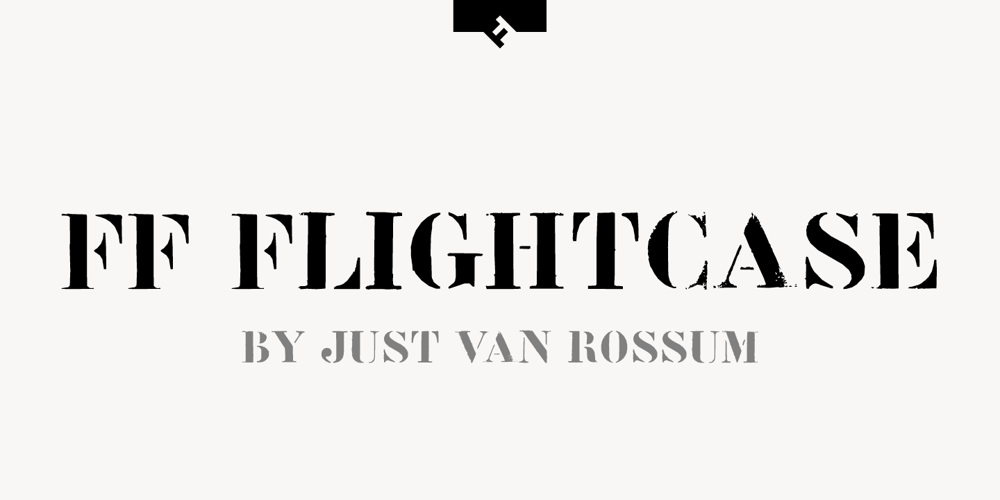
FF Flightcase
FF Flightcase font
FF Flightcase Font Family was designed by Just van Rossum and published by FontFont. FF Flightcase contains 1 styles and family package options. Dutch type designer Just van Rossum created this display FontFont in 1992. The font is ideally suited for advertising and packaging, festive occasions, editorial and publishing as well as poster and billboards. FF Flightcase provides advanced typographical support with features such as ligatures. It comes with proportional lining figures. As well as Latin-based languages, the typeface family also supports the Greek writing system.